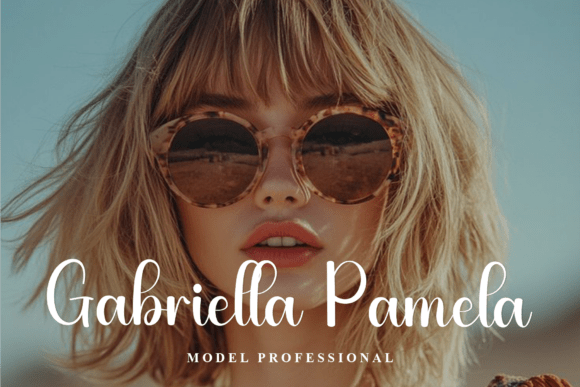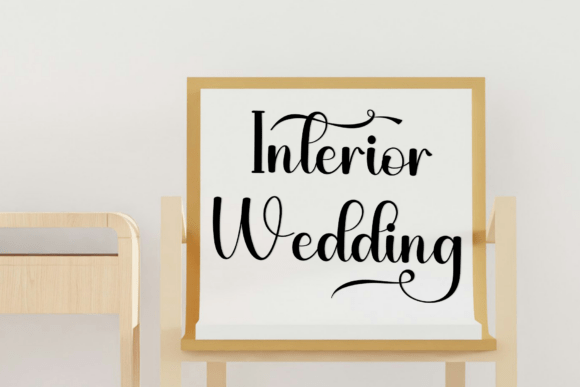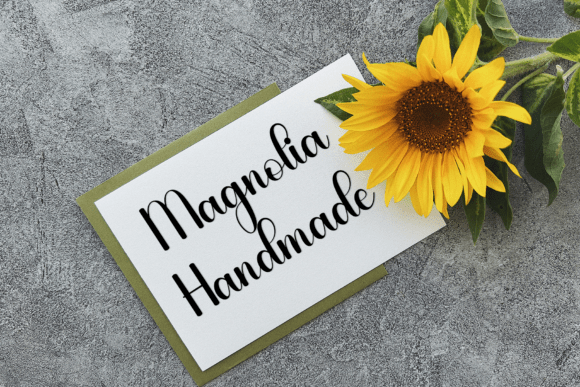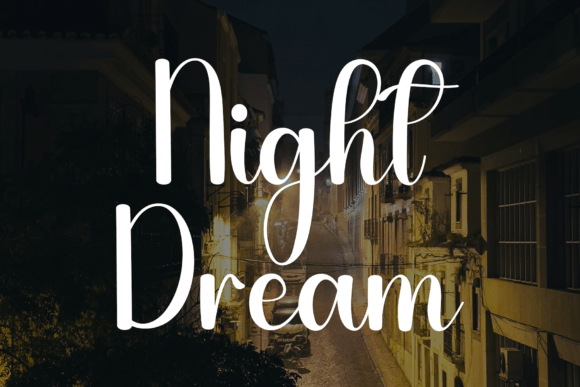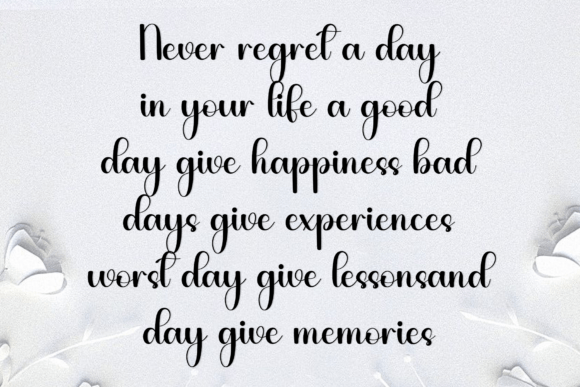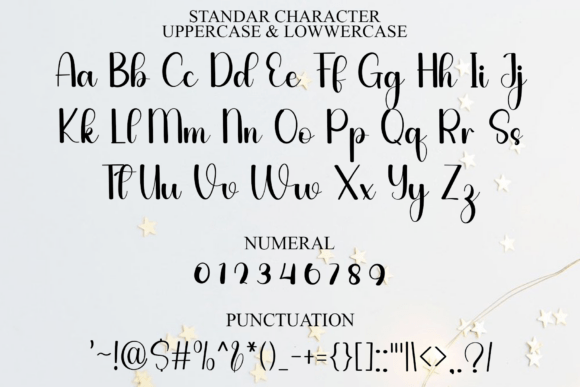
Baby Time Font: The Perfect Choice for Creative and Personal Projects
In the world of typography, fonts play a crucial role in conveying the tone and personality of a design. When it comes to creating personal projects, invitations, and social media graphics, a font that exudes warmth and friendliness is essential. This is where the Baby Time Font comes into play. In this article, we’ll explore the features and benefits of this charming font and why it’s a must-have for designers and crafters.
What is Baby Time Font?
Baby Time Font is a casual and creative font that boasts a unique, hand-drawn aesthetic. Its round, playful strokes create a relaxed and approachable feel, making it perfect for designs that require a personal touch. Whether you’re creating invitations, social media graphics, or personal projects, this font is sure to add a fun and unique touch to your design.
Key Features of Baby Time Font
- Hand-Drawn Aesthetic: The font’s charming, hand-drawn aesthetic adds a personal touch to any design, making it perfect for creative and personal projects.
- Playful Strokes: The font’s round, playful strokes create a relaxed and approachable feel, making it ideal for designs that require a friendly tone.
Benefits of Using Baby Time Font
So, why should you choose Baby Time Font for your next design project? Here are some benefits of using this font:
- Easy to Read: The font’s playful strokes and rounded edges make it easy to read, even at small sizes.
- Versatile: Baby Time Font is perfect for a wide range of design projects, from personal invitations to social media graphics.
- Unique: The font’s hand-drawn aesthetic sets it apart from other fonts, adding a unique touch to your design.
Design Ideas Using Baby Time Font
So, what can you create with Baby Time Font? Here are some design ideas to get you started:
- Personal Invitations: Create custom invitations for birthdays, baby showers, and other special occasions.
- Social Media Graphics: Use Baby Time Font to create engaging social media graphics, such as quotes, posters, and flyers.
- Crafting Projects: Add a personal touch to your crafting projects, such as handmade cards, scrapbooking, and DIY projects.
- Branding: Use Baby Time Font to create a unique brand identity for your business or personal project.
In conclusion, Baby Time Font is a versatile and charming font that’s perfect for designers and crafters looking to add a personal touch to their designs. With its hand-drawn aesthetic, playful strokes, and compatibility with various application engines, this font is sure to become a favorite in your font library. So, why not give Baby Time Font a try and see how it can elevate your designs?